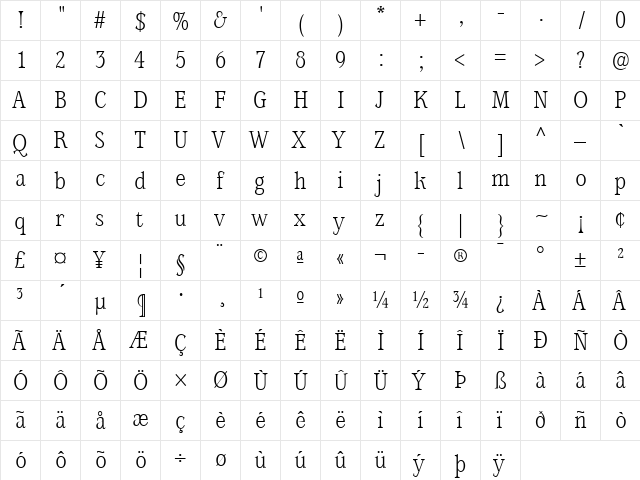
AISwan Light Condensed
| Foundry | John Pugh |
Design Context for AISwan Typeface
AISwan is a composed and adaptable typeface that performs quietly and consistently across a wide range of design contexts. The delicate stroke weight brings airiness and refinement to layouts. The condensed width makes it efficient for tight spaces without sacrificing legibility.